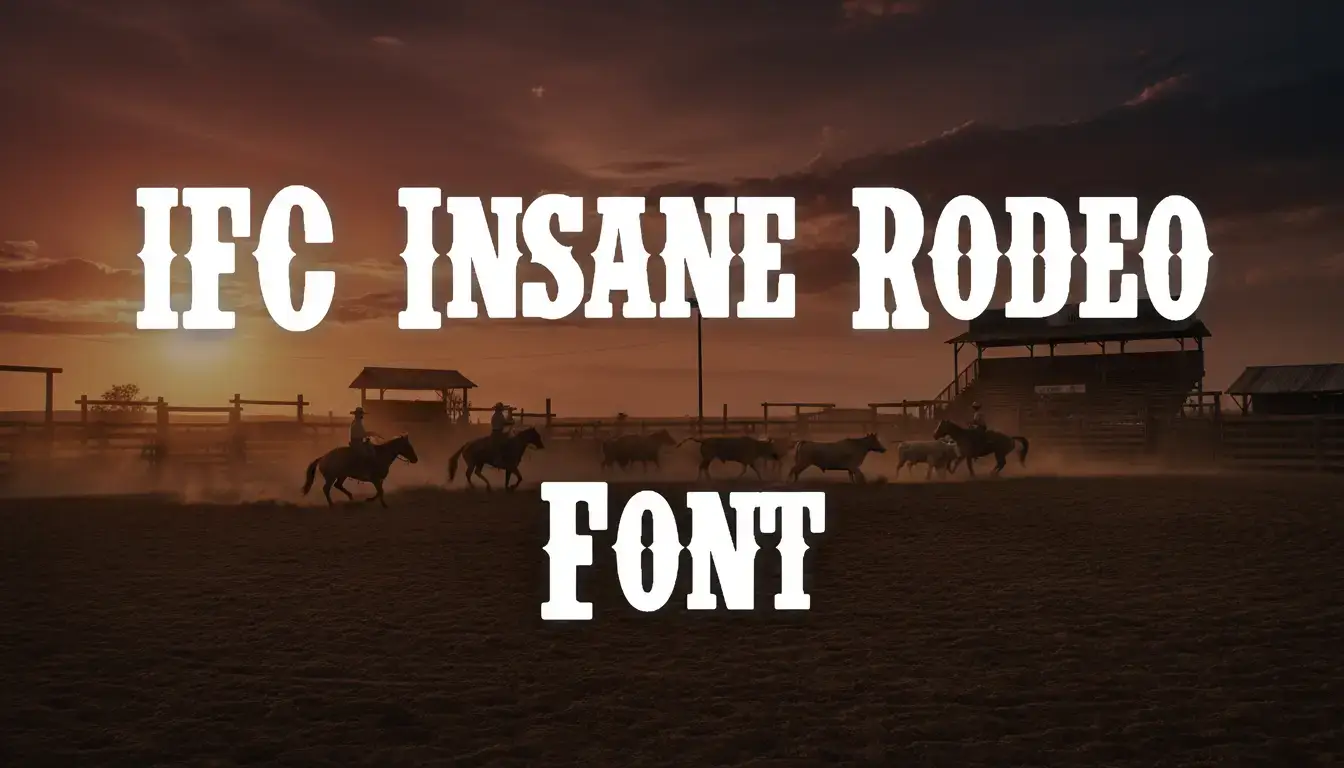
IFC Insane Rodeo Font
IFC Insane Rodeo Font Preview
IFC Insane Rodeo
IFC Insane Rodeo Character Map
IFC Insane Rodeo is a Western font. Its letters feel straight out of a cowboy movie, sturdy and full of old-west character. You get two styles in one free ZIP, and the preview above lets you test each one before you download.
IFC Insane Rodeo Font Details
What You Can Type With IFC Insane Rodeo
IFC Insane Rodeo covers the full alphabet in upper and lowercase, plus all ten numbers, so you can set names, dates and prices without switching fonts. Everyday marks like &, !, ? and @ are there too. There are no accented letters like é or ñ, so it's best kept to English text.
Where IFC Insane Rodeo Works Best
Designers usually reach for fonts like IFC Insane Rodeo when they're making rodeo posters, saloon signs and country music flyers. Try it in brown, rust or cream on a paper texture for the full old-west look. Because the family has more than one style, you can mix them in a single design for headings, subheadings and highlights.
Does IFC Insane Rodeo support accented letters?
No. IFC Insane Rodeo has no accented letters such as é, ñ or ü, so it's best for English text.
What fonts pair well with IFC Insane Rodeo?
A sturdy slab serif or a simple serif works well for the smaller text.